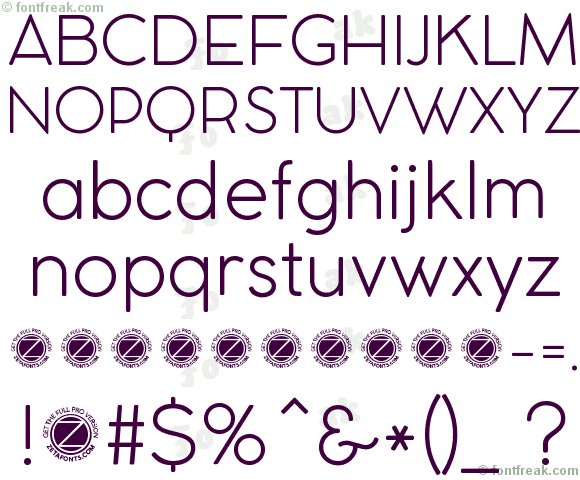
COCOMAT Light
COCOMAT UltraLight
COCOMAT Light is a striking sans-serif font designed by the innovative kmzero font foundry. This ultralight typeface exudes a modern aesthetic, characterized by its clean lines and minimalistic elegance. The stroke weight is delicately thin, offering a refined visual appeal with subtle contrast that enhances its readability. The generous spacing between characters further contributes to its airy feel, making it an excellent choice for contemporary design projects.
Ideal for various applications, COCOMAT Light shines in areas such as branding, editorial design, and digital media. It is particularly well-suited for restaurant menus where a sleek presentation is essential, as well as in wedding invitations where elegance and sophistication are paramount. Additionally, its modern vibe makes it a great fit for tech startup branding and minimalist product packaging. Graphic designers and content creators will find this font versatile for creating eye-catching social media graphics and website headings.
The target audience for COCOMAT Light includes graphic designers, small business owners, and other creative professionals seeking to elevate their visual communication. This font is perfect for those who appreciate the balance of simplicity and style, allowing them to convey messages effectively while maintaining a contemporary look.